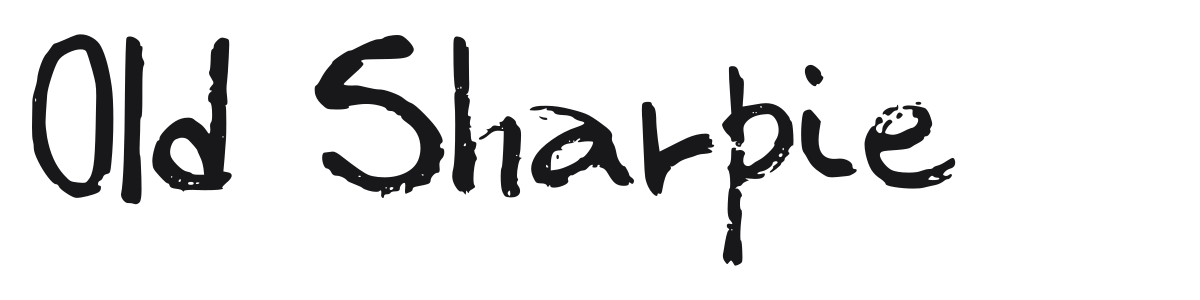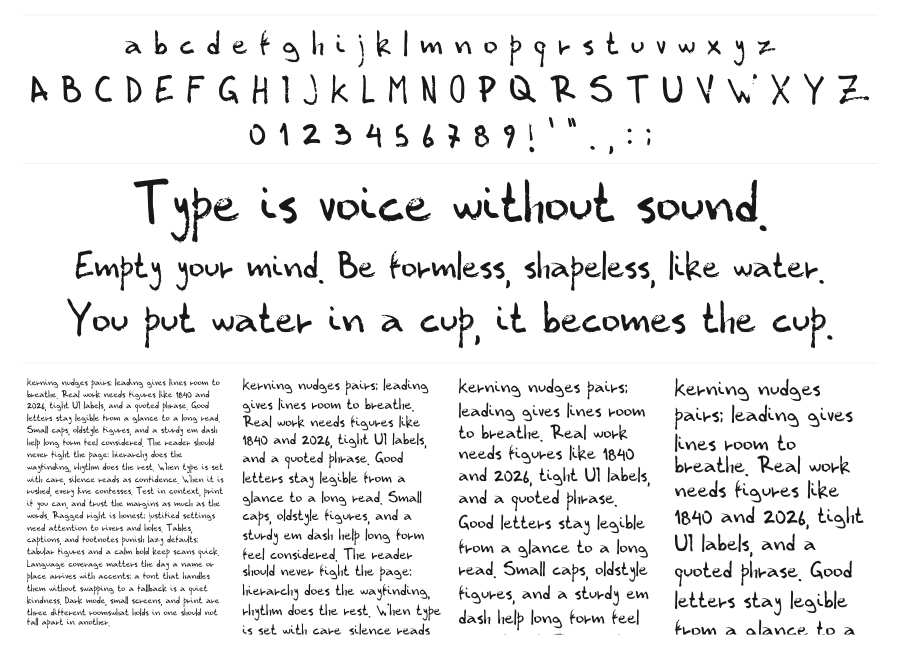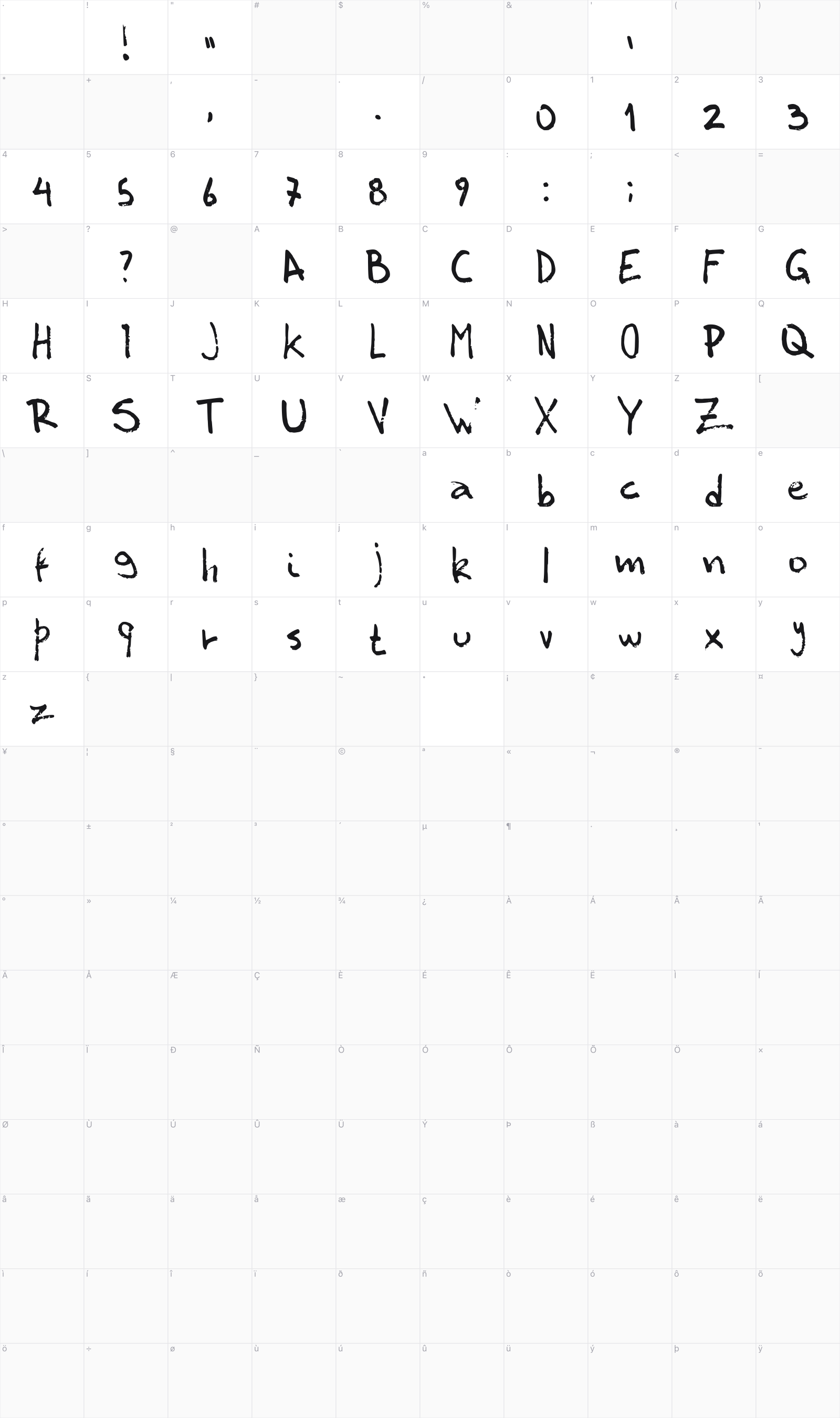
Old Sharpie
by Juan Manuel Meriño Ramirez
Old Sharpie is a casual brush script traced directly from a worn, dried-out Sharpie marker, capturing every ink bleed and frayed stroke edge. The rough texture and organic irregularity give it a genuine handmade quality that digital brush fonts rarely achieve. It works well wherever authenticity and a raw, human touch matter more than precision.